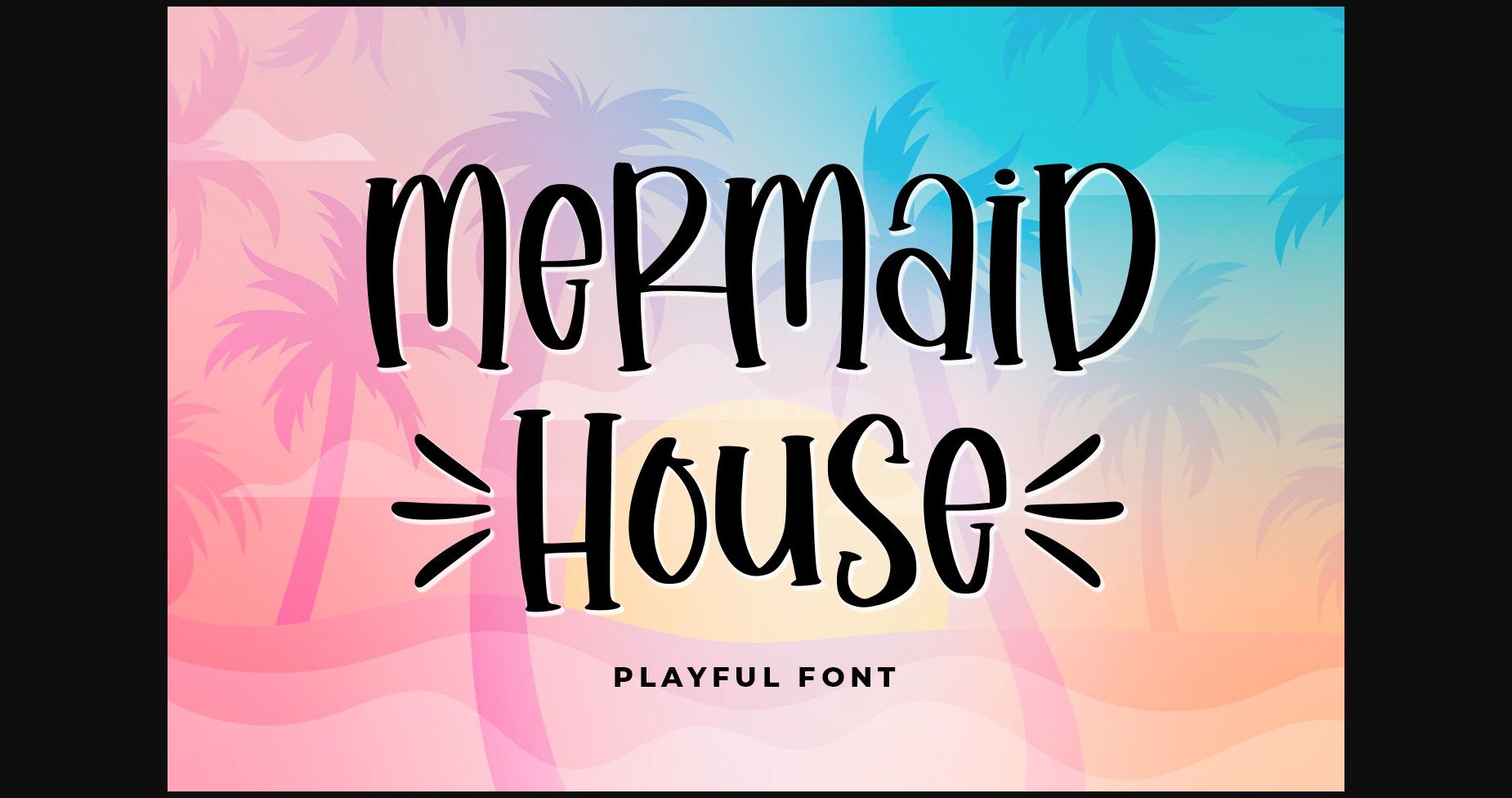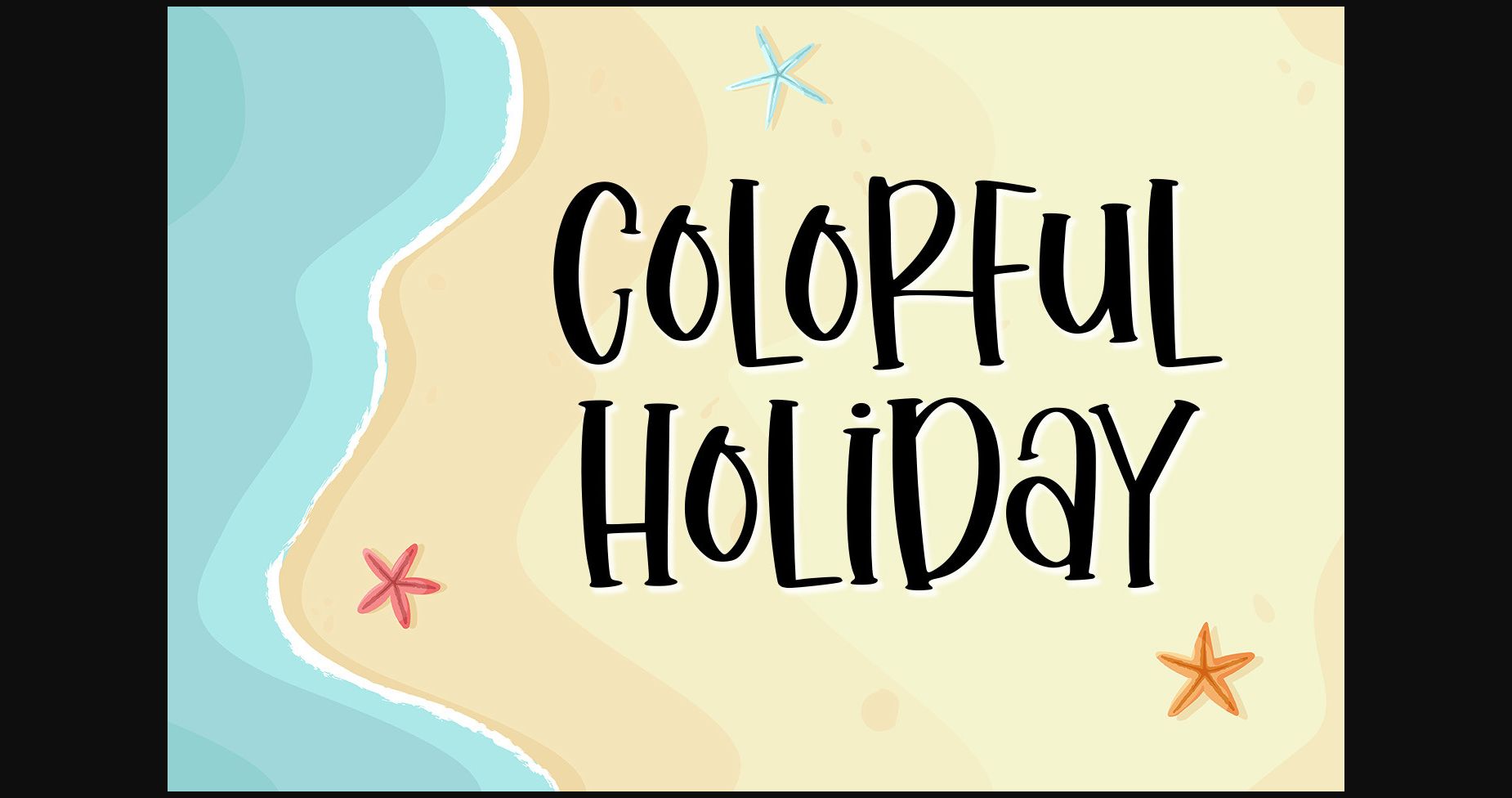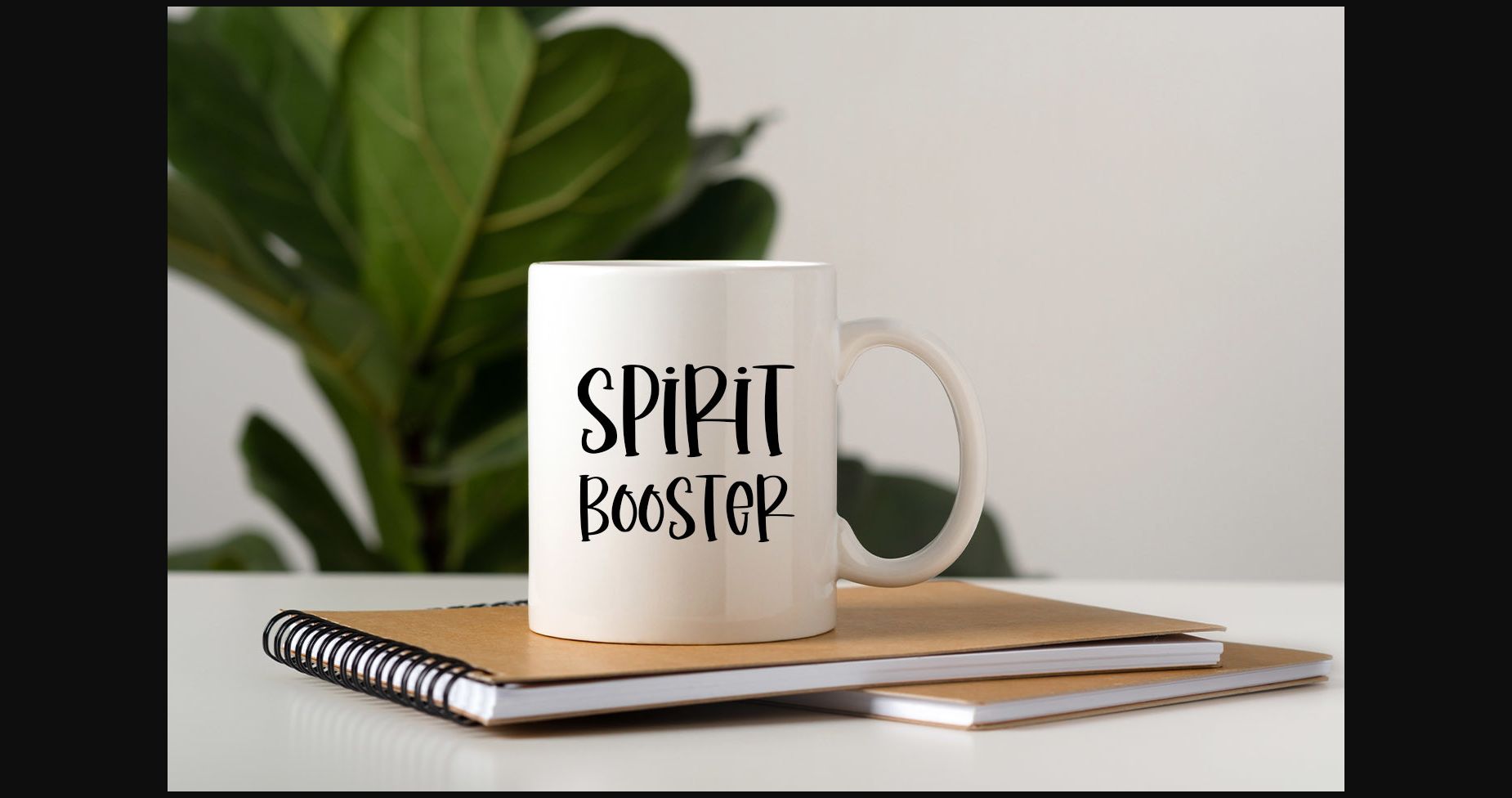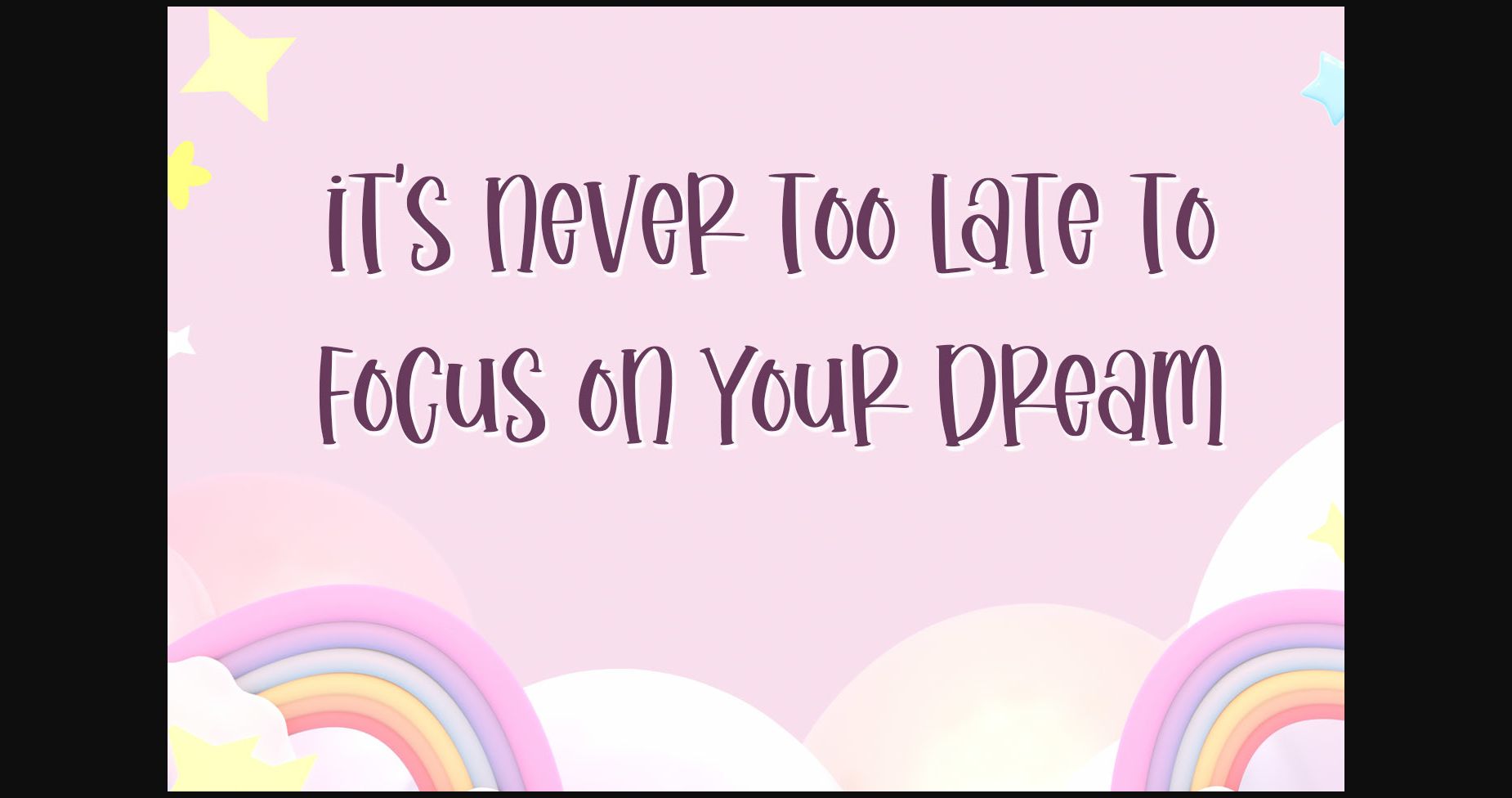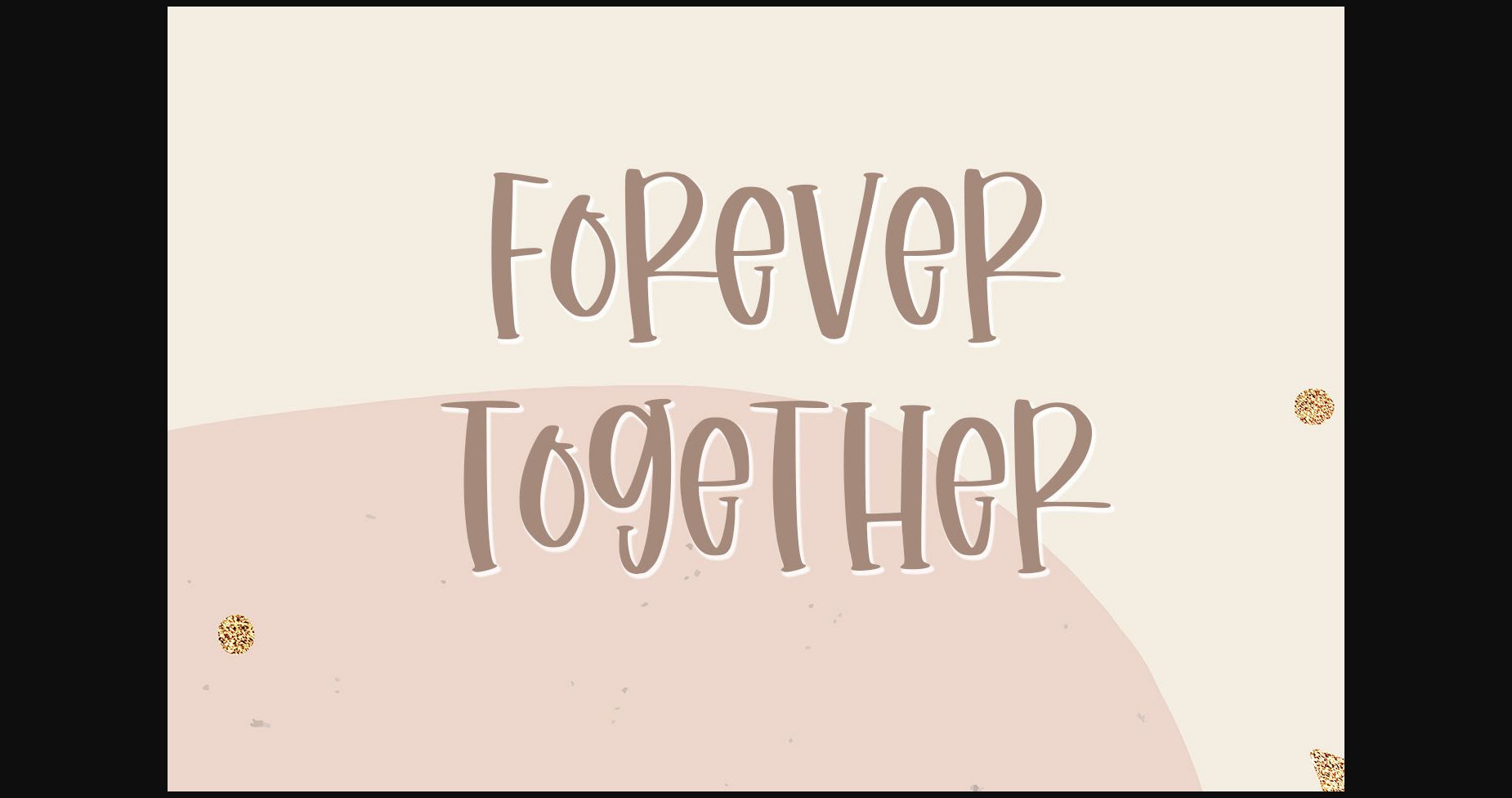
About Mermaid House Font
introducing
MERMAID HOUSE
– playful handwritten font-
MERMAID HOUSE is a cute and playful font.
It is great for branding, quotes, logos, t-shirt designs, tote bag designs, cards, banners, social media, and more.
– Uppercase style